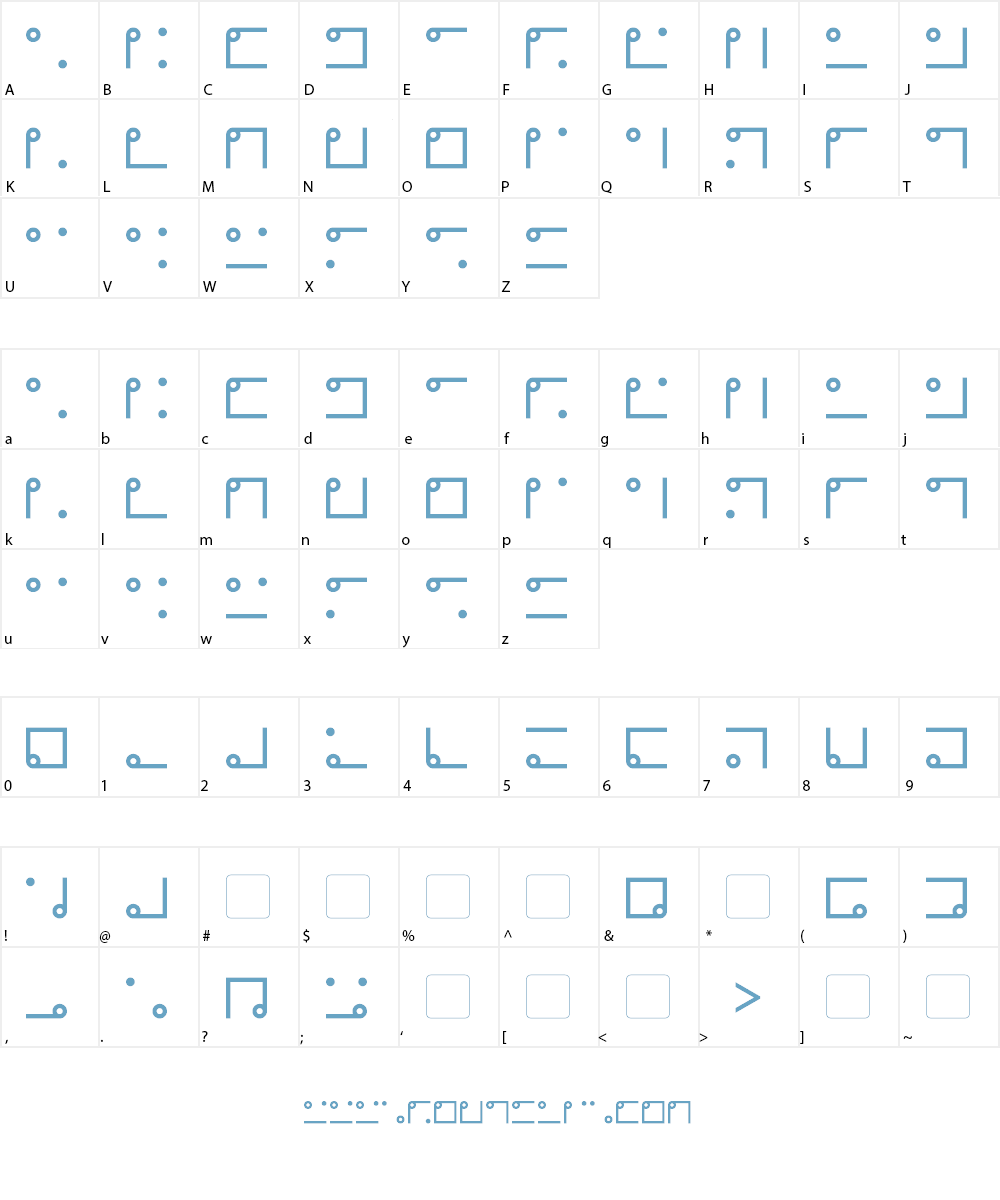
Nyctographic is based on Lewis Carrol’s night-time writing invention, used in his creation of Alice in Wonderland. The typeface includes full alphabet, confirmed punctuation, and fan-created numerals.